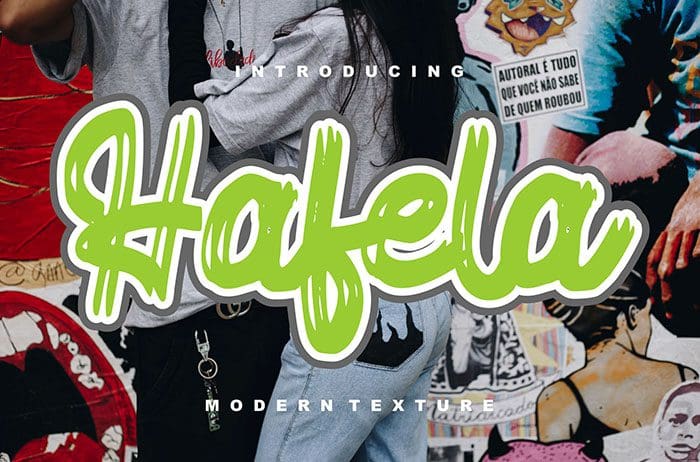
Hafela Script Font embodies fun, quirkiness, and authenticity. This font will turn any creative idea into a true standout. Thanks to Vunira Studio for sharing this font! Take a look at this portfolio for more of his stunning fonts.